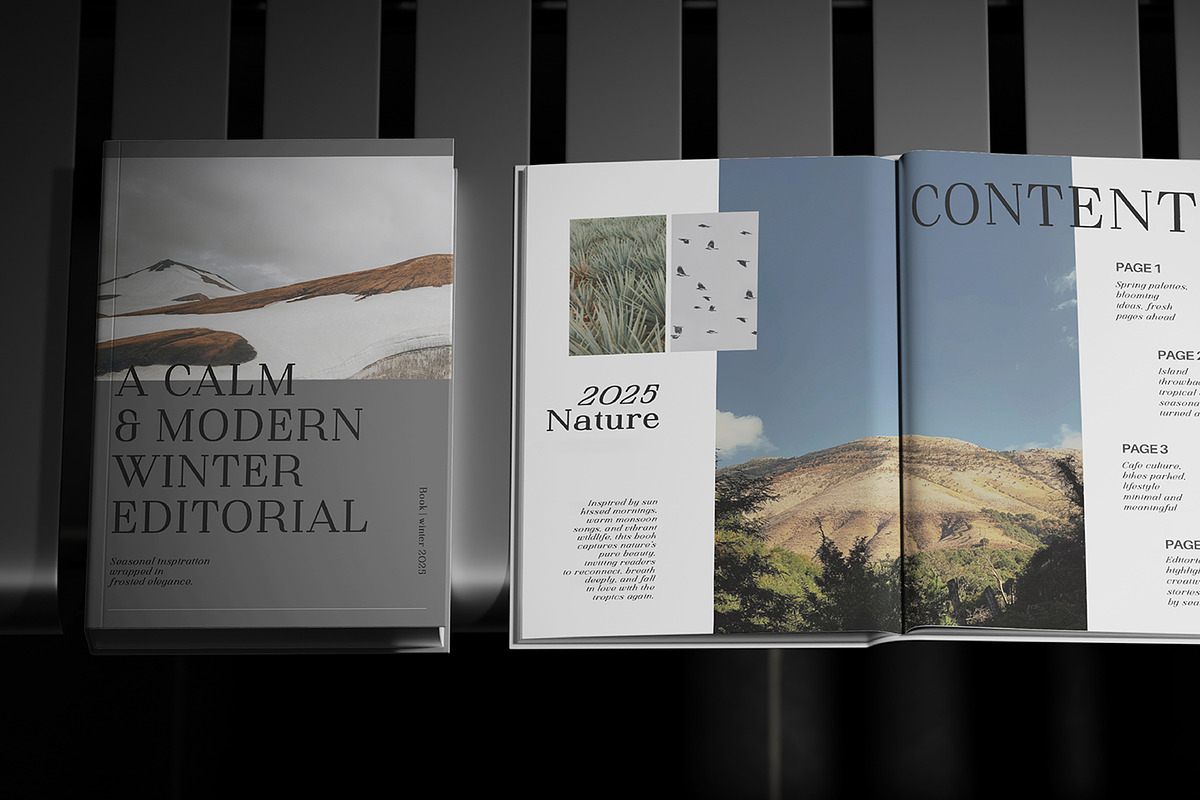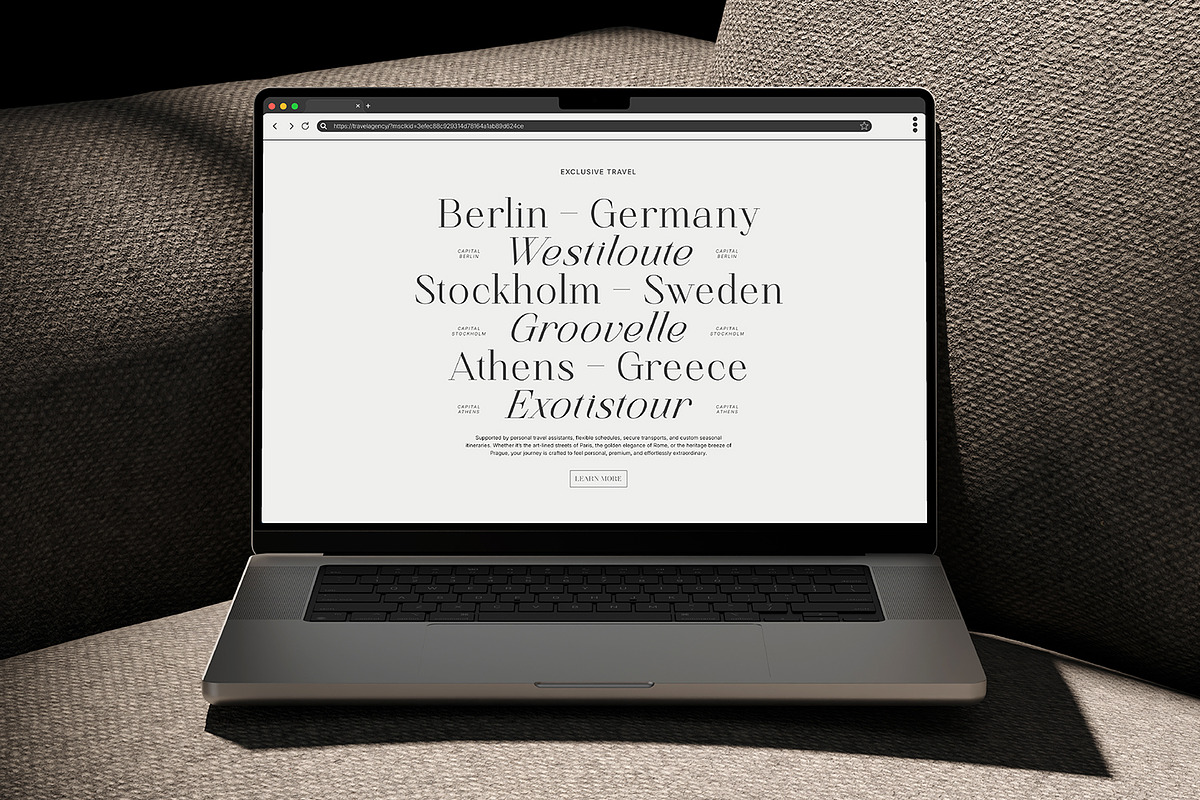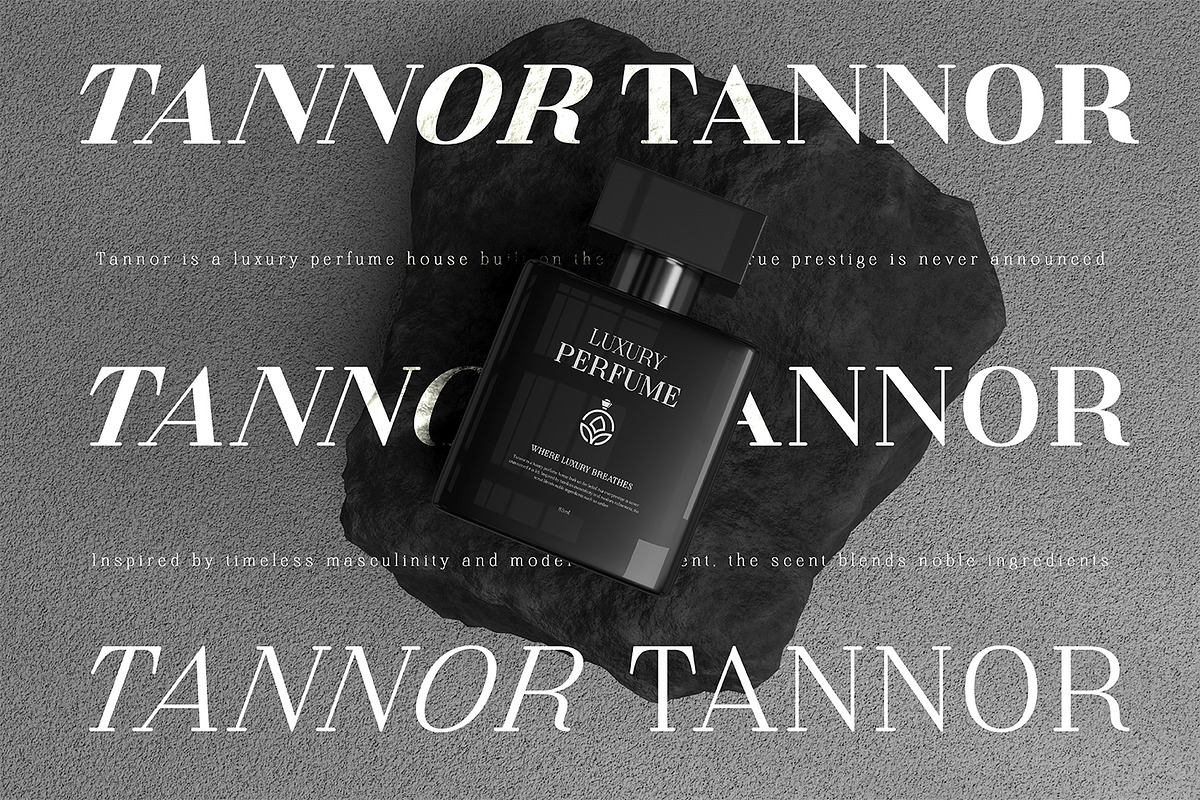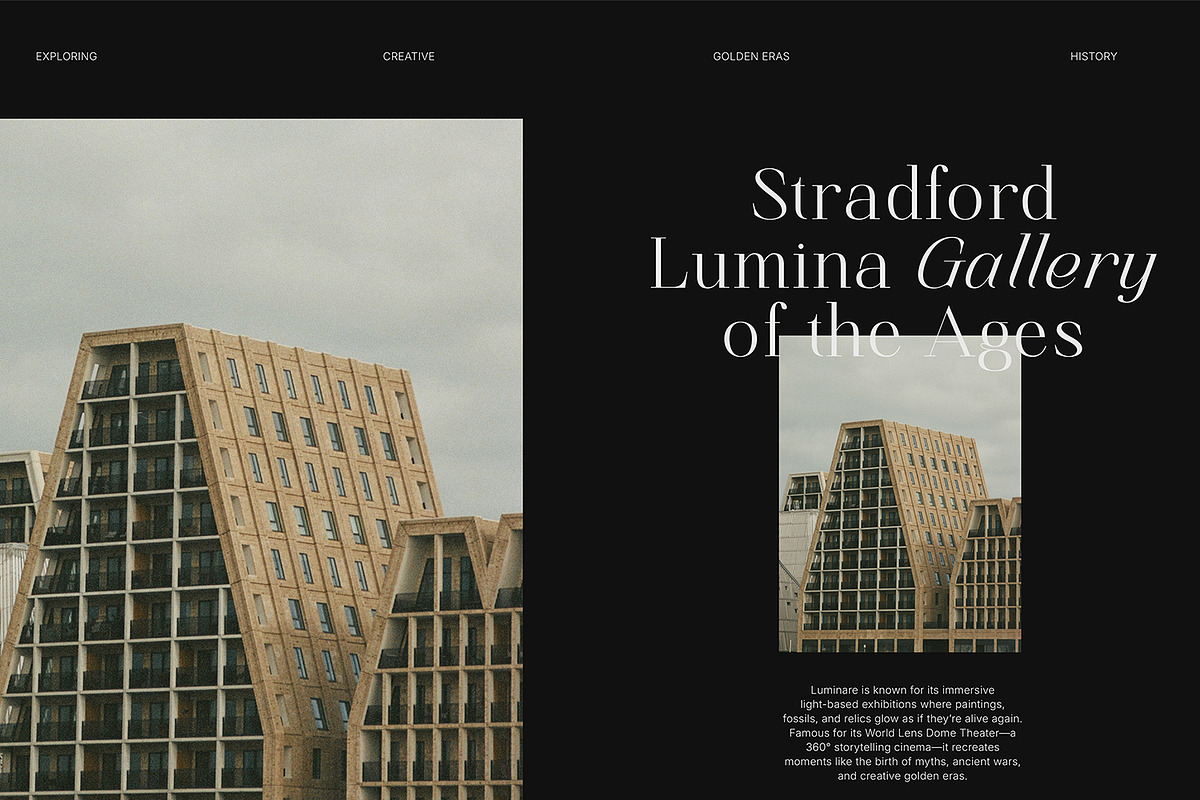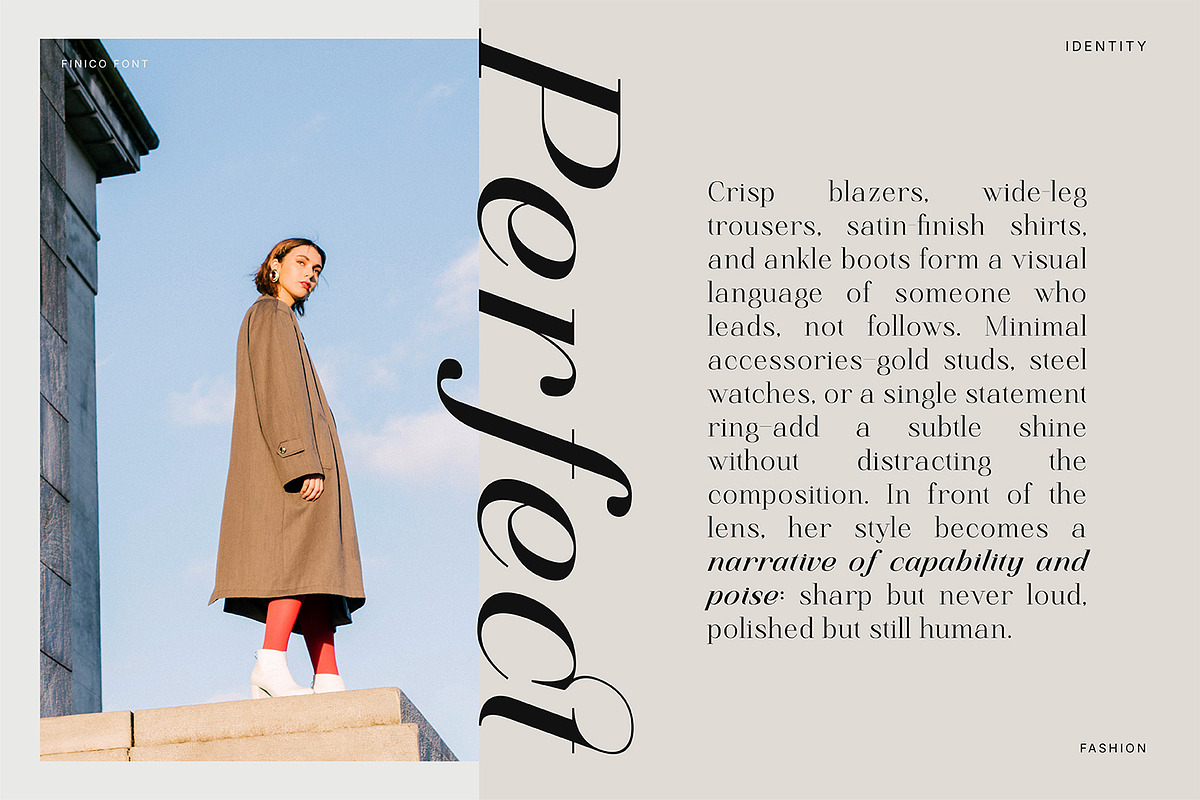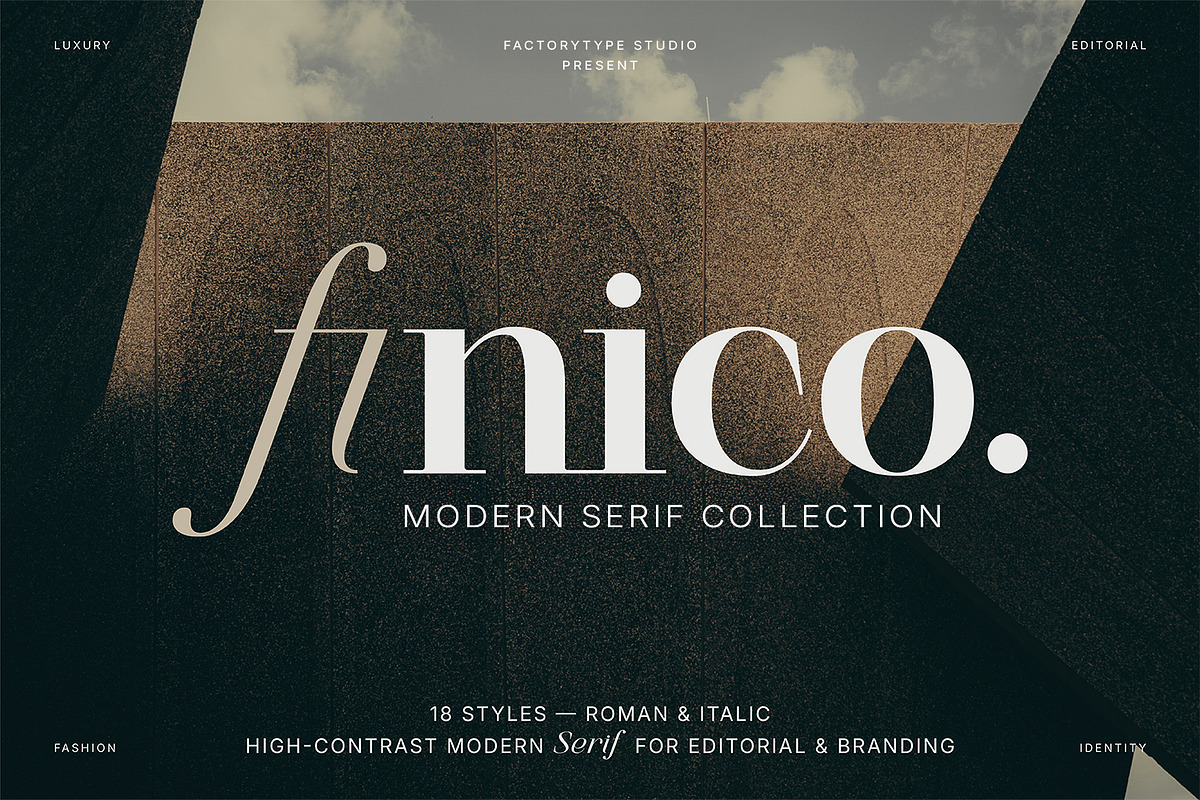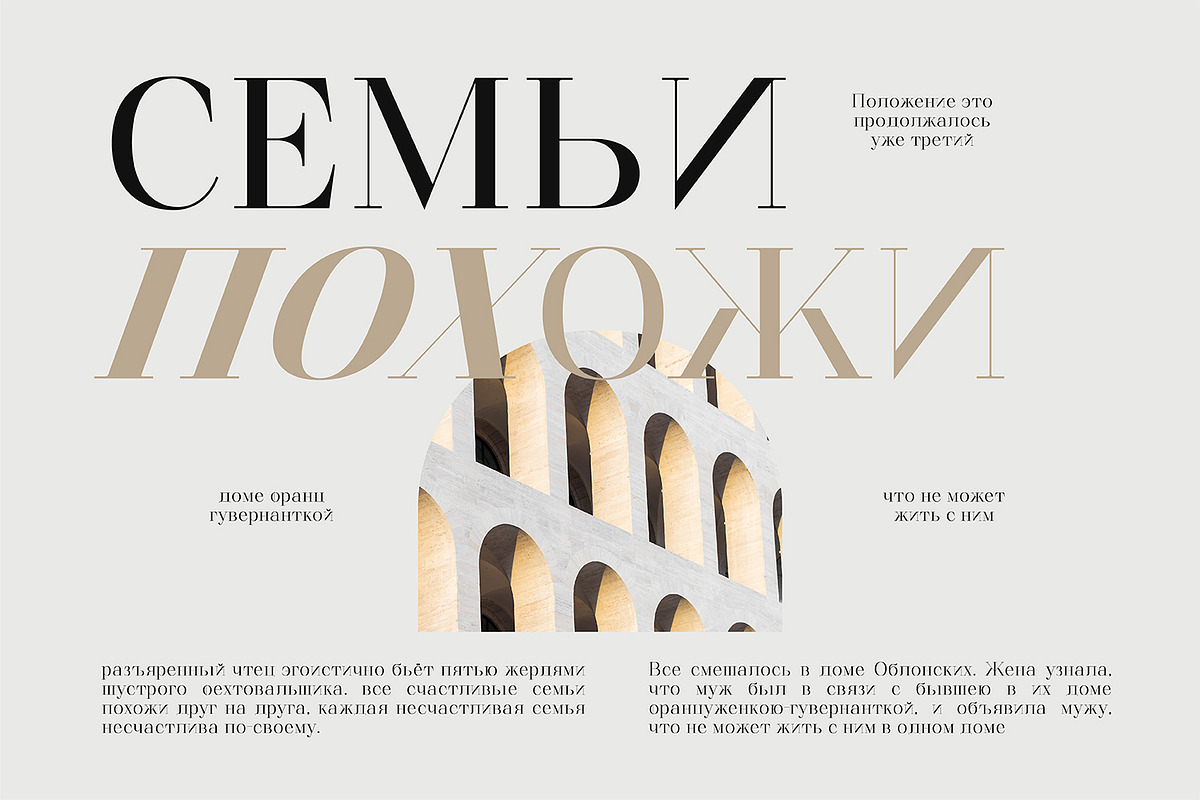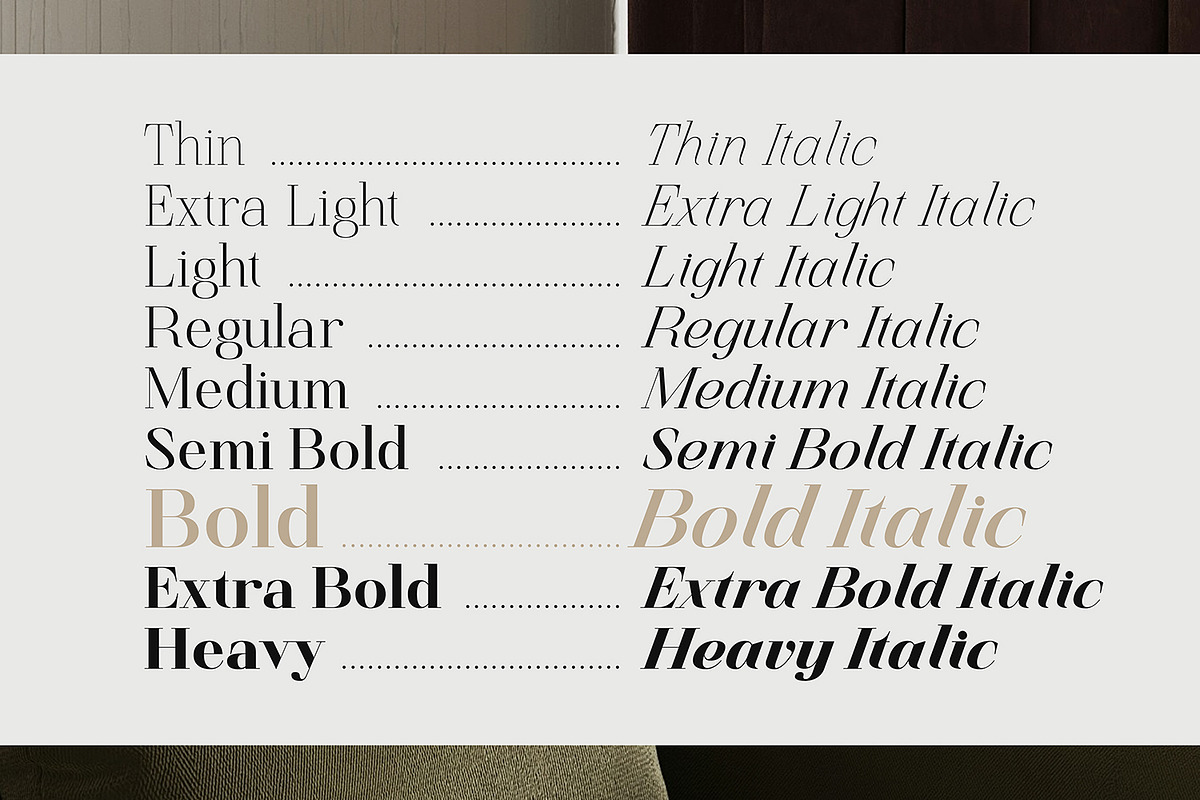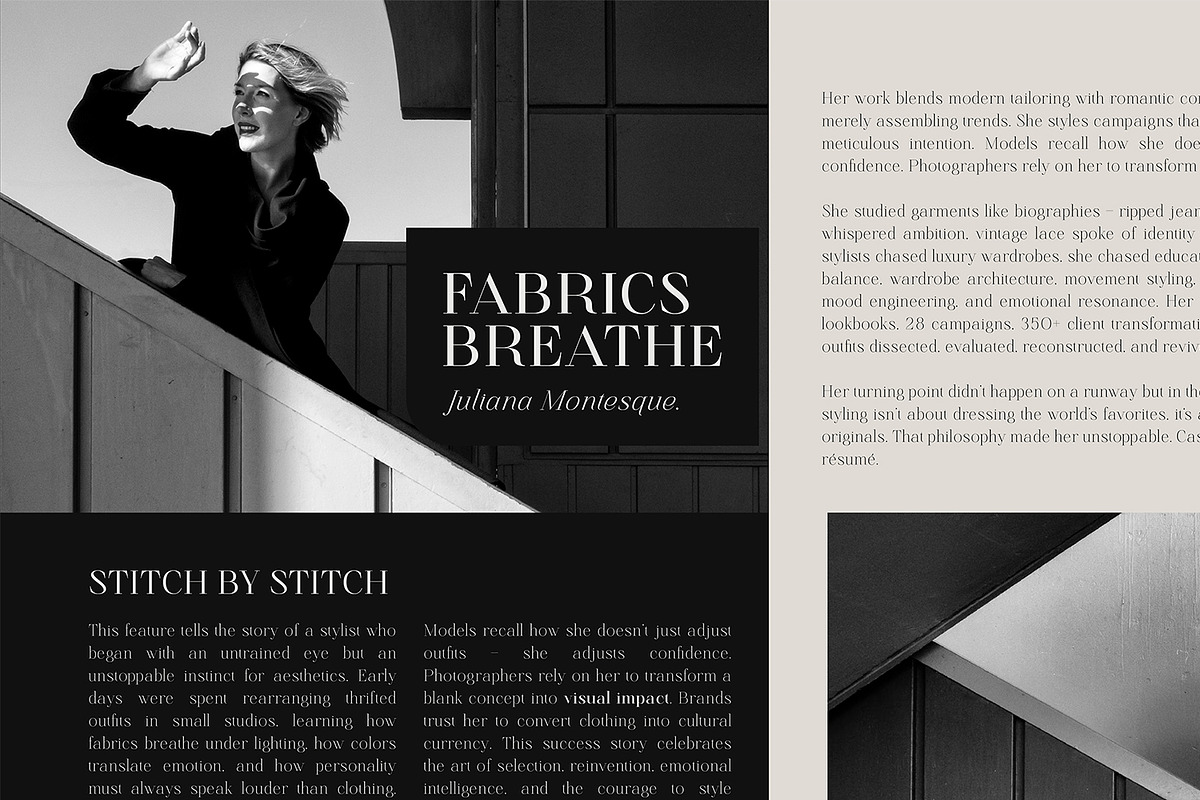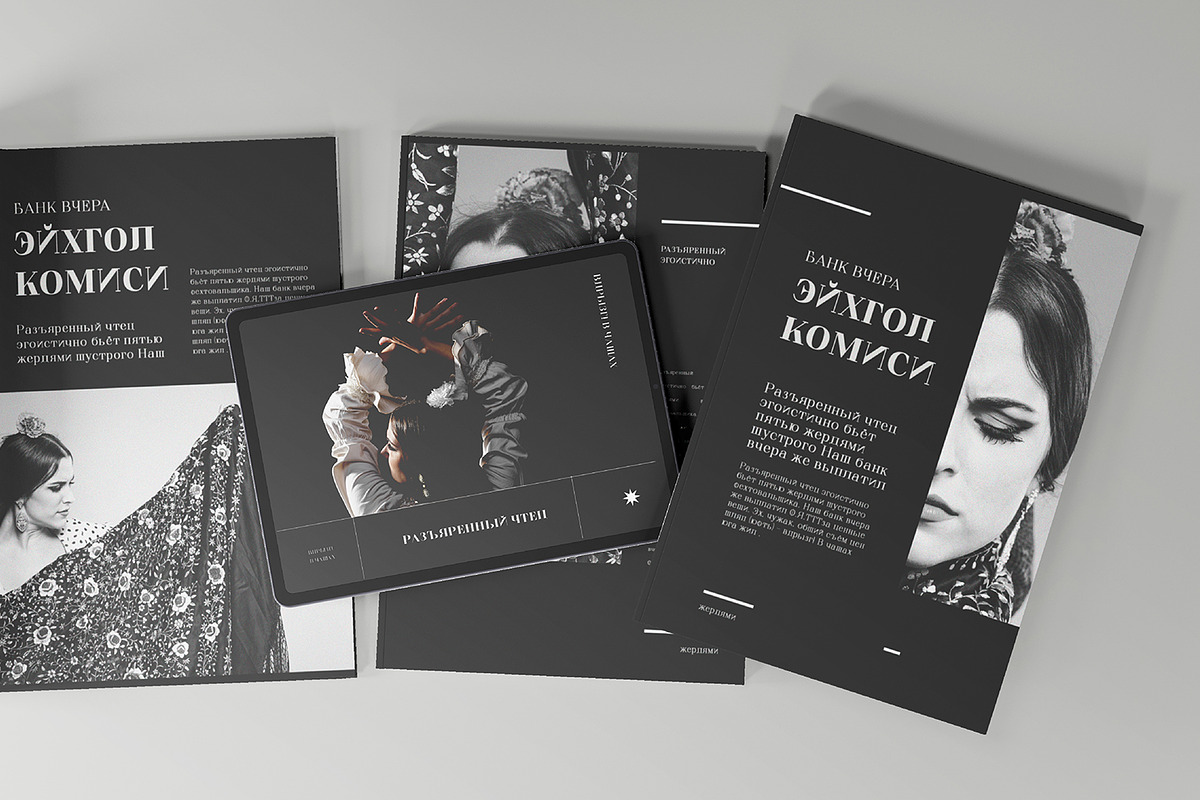
Finico Serif – High-Contrast Serif
Finico Serif: The Polished Energy of Modern Luxury
Elevate your visual impact with Finico Serif, a high-contrast modern serif family designed to command attention and steal the spotlight in every composition.
Blending sculpted elegance with contemporary sophistication, Finico Serif is defined by its refined curves, sharp serifs, and beautifully rhythmic italics. It is purposefully designed for creators who demand a polished, confident energy for high-end editorial statements, luxury fashion identities, and premium packaging that requires a distinct architectural presence.
Now featuring a complete system of 18 styles, Finico Serif offers a striking spectrum of weights—from an ethereal, whisper-thin line to a commanding, heavy-set statement. With its unique ligatures and expressive motion, this family provides the striking contrast and professional rhythm required to elevate premium brands and type-driven designs to a global standard.
- Aesthetic Focus: High-contrast modern elegance, tailored for luxury fashion, beauty, architecture, and editorial mastheads.
- 18 Total Styles: A comprehensive range of 9 weights (Thin to Heavy) with matching, expressive Italics.
- Pro Character Set: Includes artistically crafted stylistic ligatures and deep OpenType features for a perfectionist touch.
- Global Language Support: Comprehensive multilingual support for 119+ languages, including full Latin and Cyrillic sets.